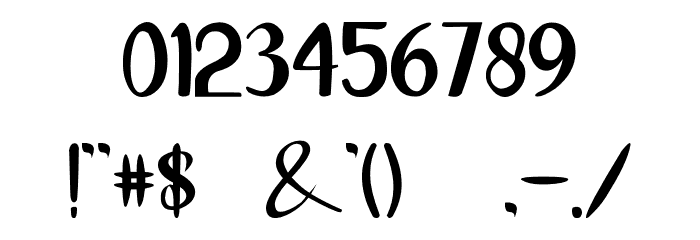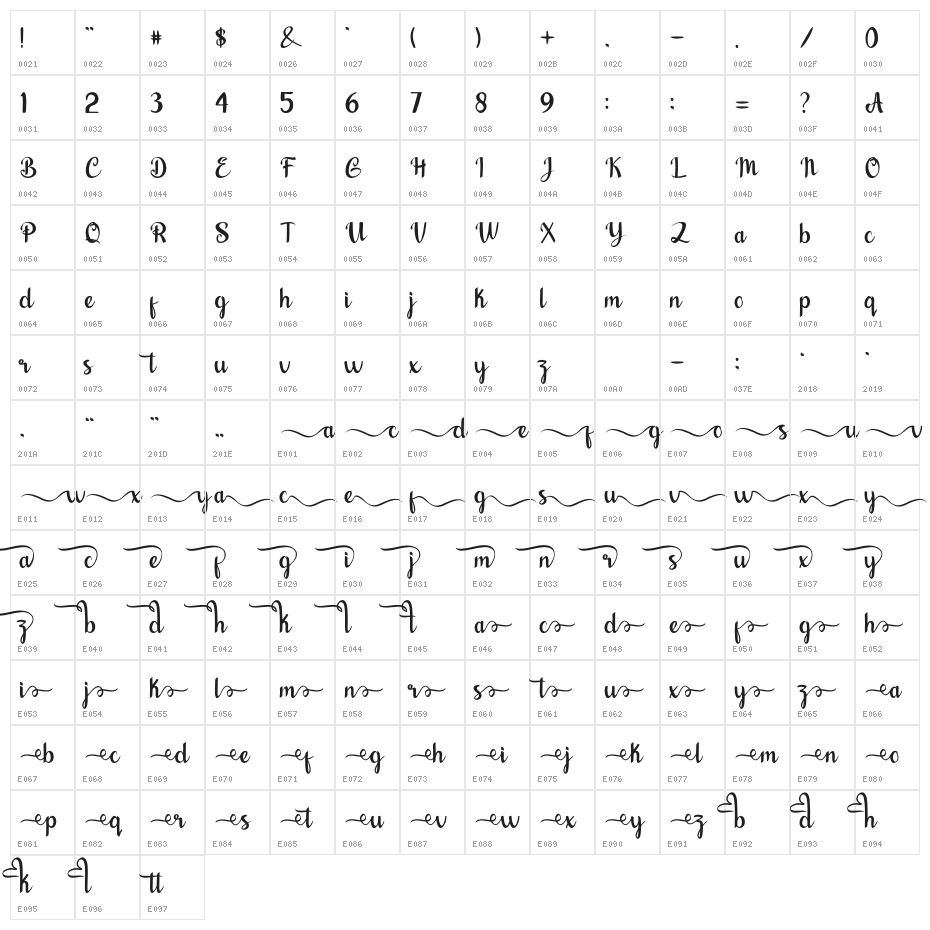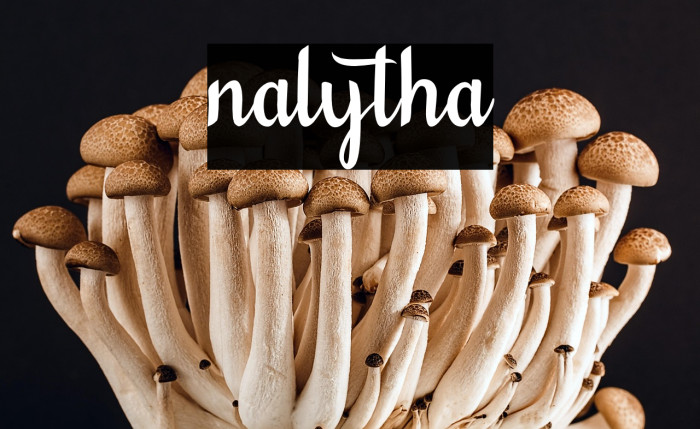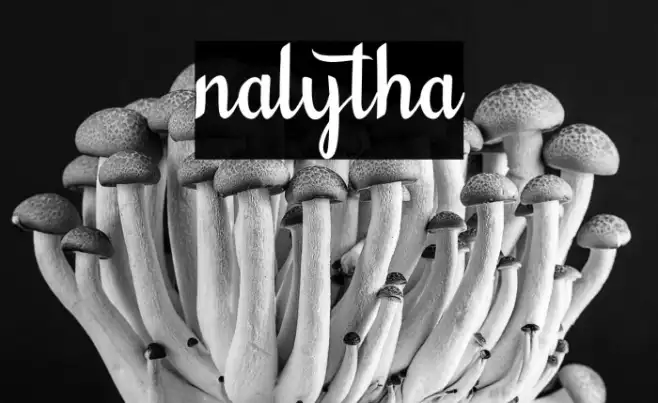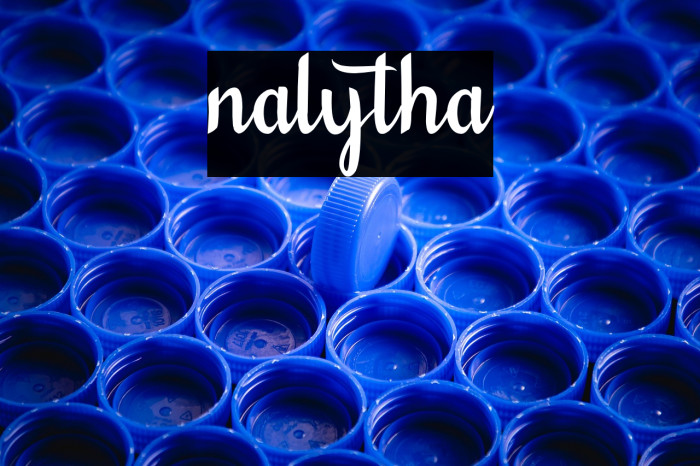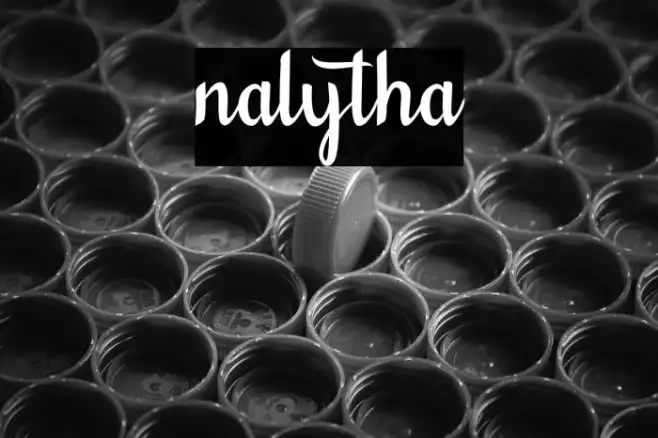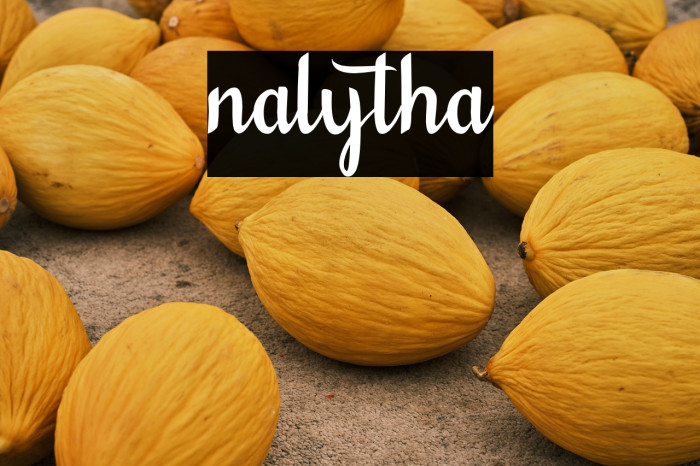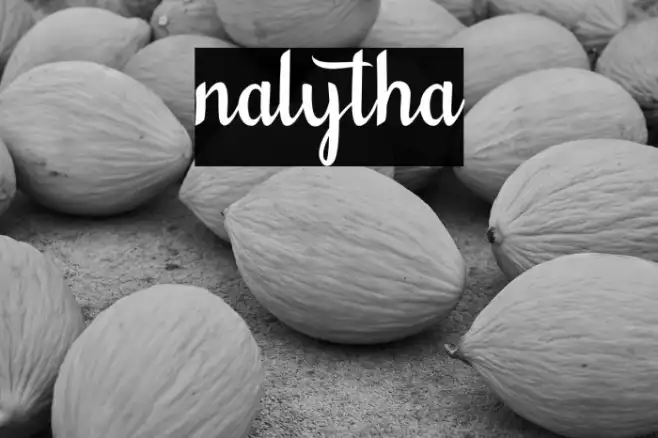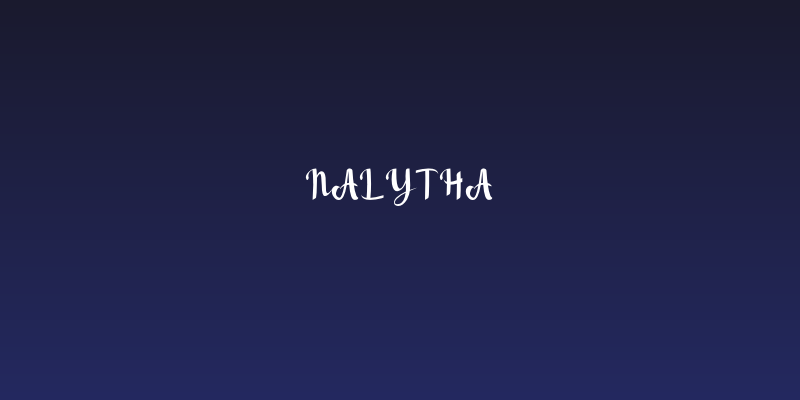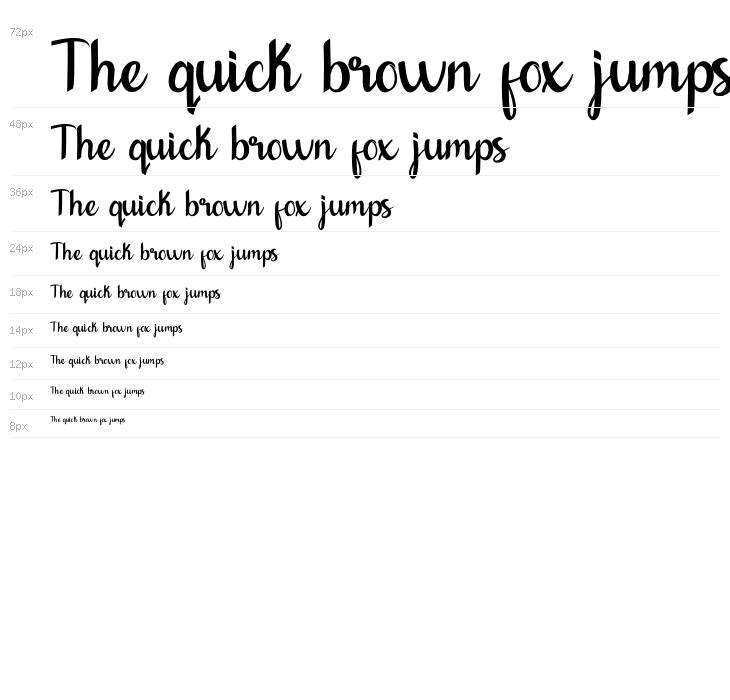
nalytha Font
nalytha Description
This font features a playful and elegant script style with a handwritten appearance. The uppercase letters are bold and flowing, with distinctive loops and curves that add a touch of whimsy. The lowercase letters maintain a consistent style, with smooth connections and a slightly slanted orientation, enhancing the font's fluidity. Numbers are clear and easy to read, while special characters are designed to match the overall aesthetic, making them suitable for decorative purposes. The font's unique style is both artistic and legible, making it versatile for various design needs.
| Use Case | Logos, Invitations, Headlines |
| Proposed Projects | Ideal for wedding invitations, greeting cards, branding projects, and social media graphics. |